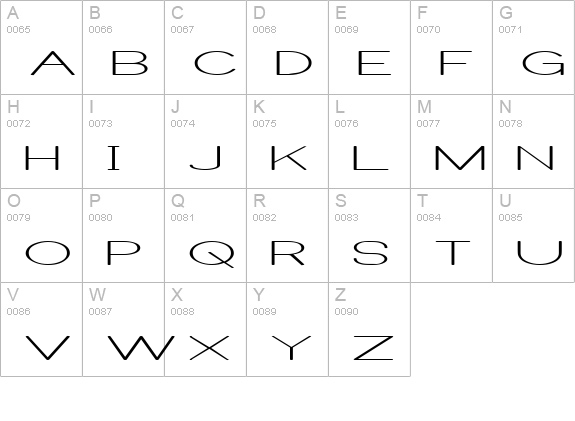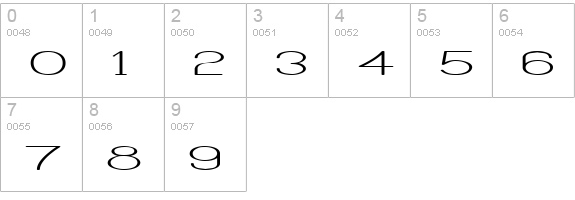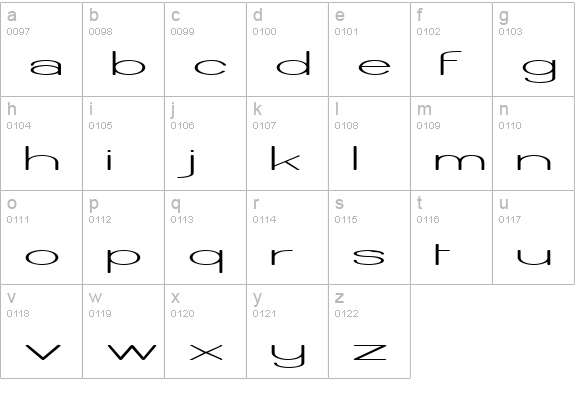
Castorgate Wide Font Details
Castorgate Wide is a distinctive, extended-width variant in the Castorgate typeface family \xE2\x80\x94 well suited to design and typography projects.
Castorgate Wide is a modern and elegant font that exudes sophistication and style. Its wide letterforms make a bold statement while maintaining readability and versatility. Whether used for branding, headlines, or body text, this font is sure to make a lasting impression. What sets Castorgate Wide apart is that it is available for free download at FontsMarket.com. This means that you can easily access this high-quality font for all your design needs without any cost. With its clean lines and contemporary feel, Castorgate Wide is a must-have addition to any designer's toolkit. Download it today and elevate your projects with this stunning typeface.